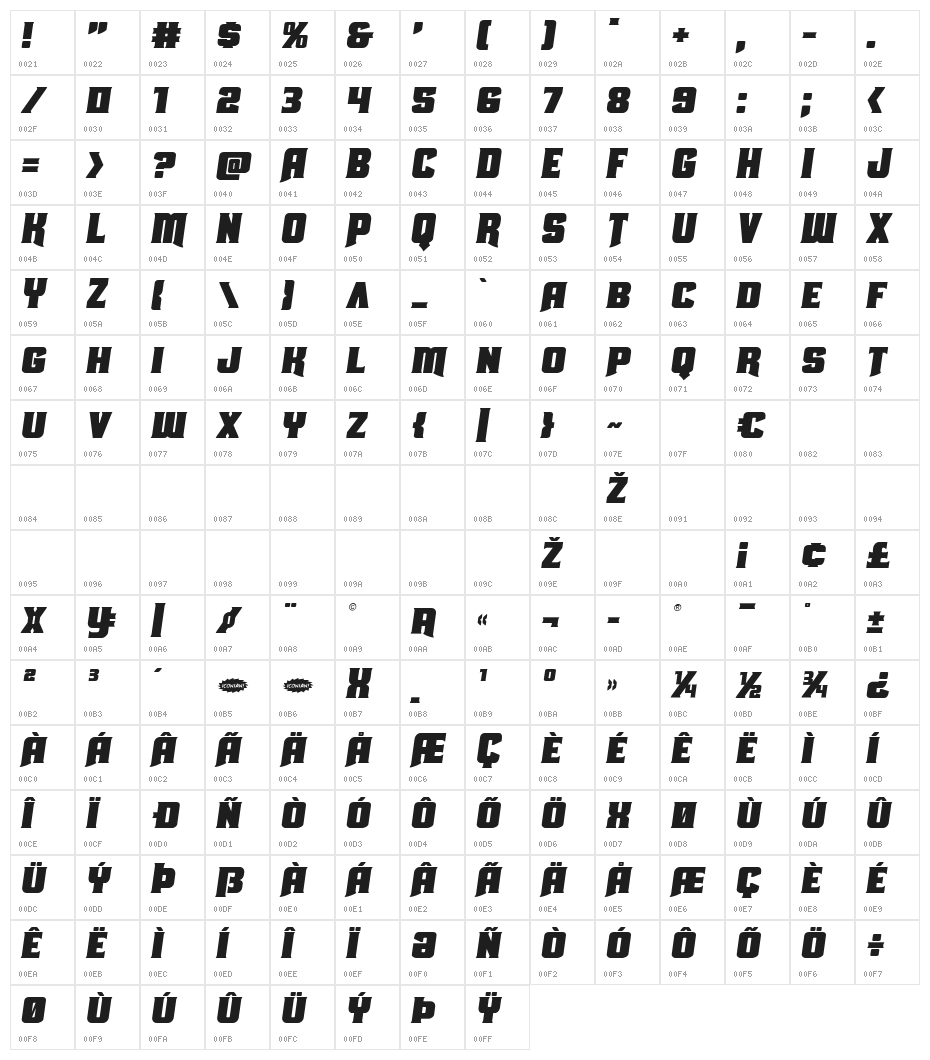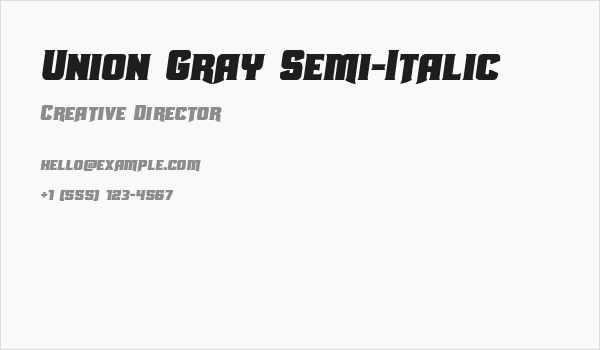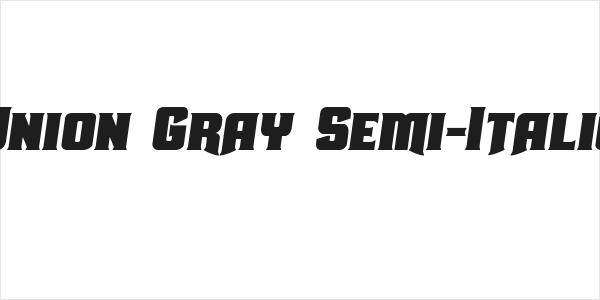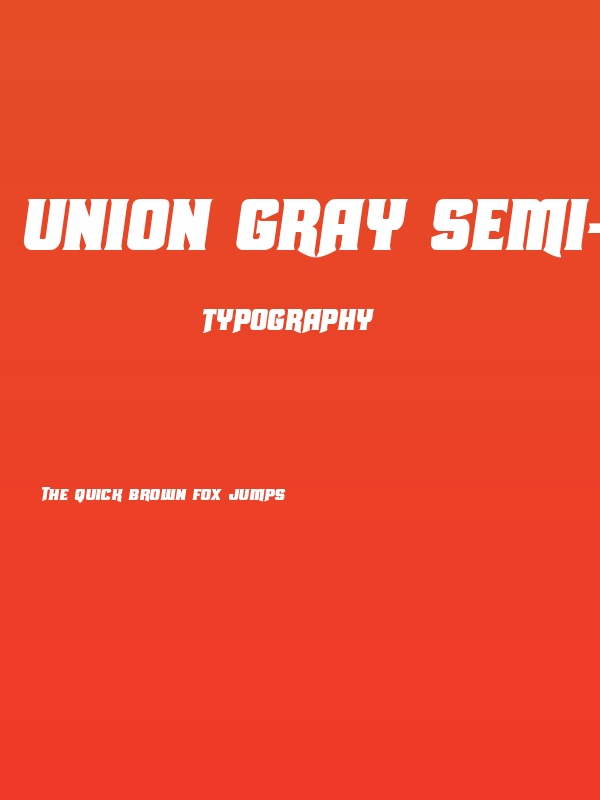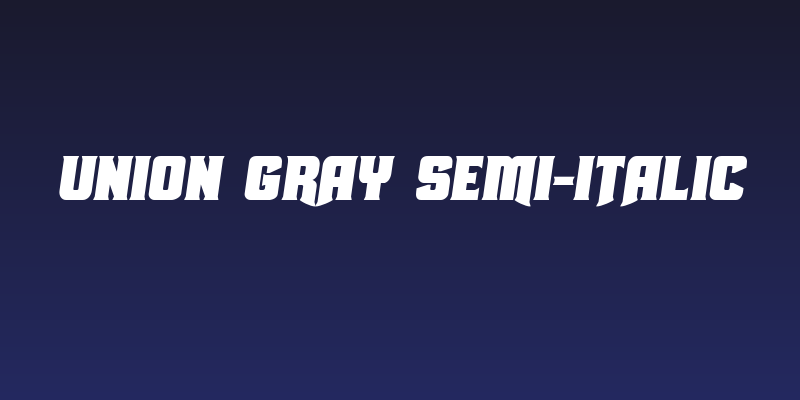
Union Gray Semi-Italic Font
Union Gray Semi-Italic Description
This font features a bold and dynamic style with a semi-italic slant, giving it a sense of movement and energy. The characters are robust and angular, with sharp edges and a slightly condensed form. The uppercase letters are particularly striking, with a strong presence that commands attention. The numerals and special characters maintain the same boldness and angularity, ensuring consistency across all glyphs. This font's unique style makes it suitable for projects that require a strong visual impact.
| Proposed Projects | Ideal for sports branding, posters, headlines, and any design needing a bold, energetic typeface. |